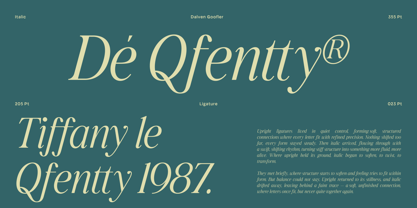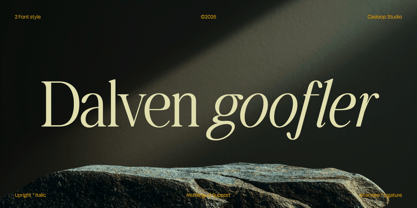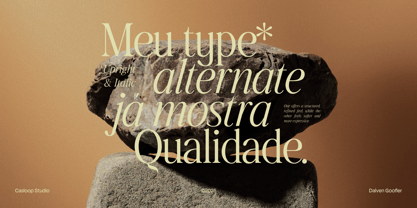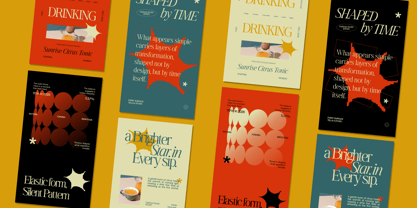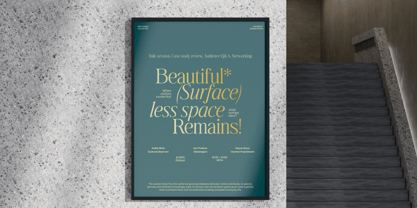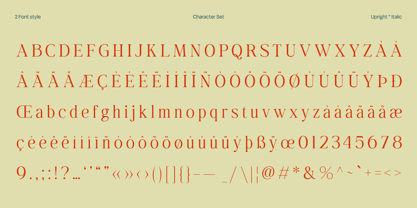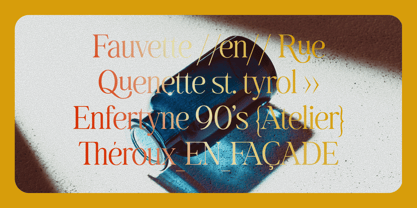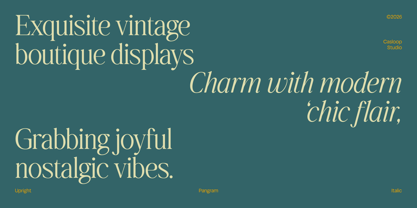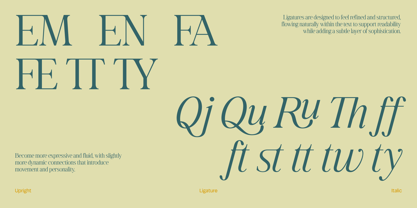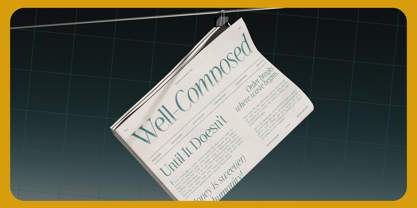
Dalven Goofler
by Casloop Studio
The Dalven Goofler Font Family was designed by Wantara Putra and published by Casloop Studio. Dalven Goofler contains 2 styles and family package options. More about this family
Dalven Goofler is a vintage elegant display font that blends nostalgic charm with a polished, contemporary sensibility. Built on classic proportions, its standout characters D, Q, R, S, and G are carefully refined with subtle stroke contrast and smooth detailing, creating a calm yet confident visual rhythm. The result is a sophisticated typeface that feels both timeless and modern, making it ideal for fashion branding, boutique logos, editorial headlines, and design work that seeks a chic, glamorous presence without appearing excessive. Recommended pairing with: Cormorant Garamond, DM Sans, Lora, Didot, Baskerville, Garamond Multilingulal Support : Bosnian, Catalan, Czech, Danish, German, English, Spanish, Estonian, Finnish, French, Irish, Croatian, Hungarian, Icelandic, Italian, Lithuanian, Latvian, Dutch, Norwegian, Polish, Portuguese, Romanian, Slovak, Slovenian, Albanian, Swedish, Turkish.